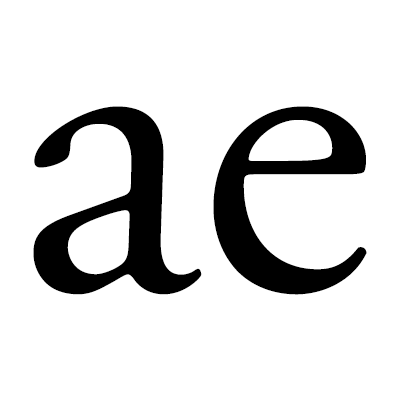
Named after Claude Garamond and Aldus Manutius, these fonts are between the the early (“humanist”) and late (“transitional”) oldstyle designs.
Dutch: garalden
French: les garaldes
German: französische Renaissance-Antiqua
Italian: garaldo
Spanish: garalda